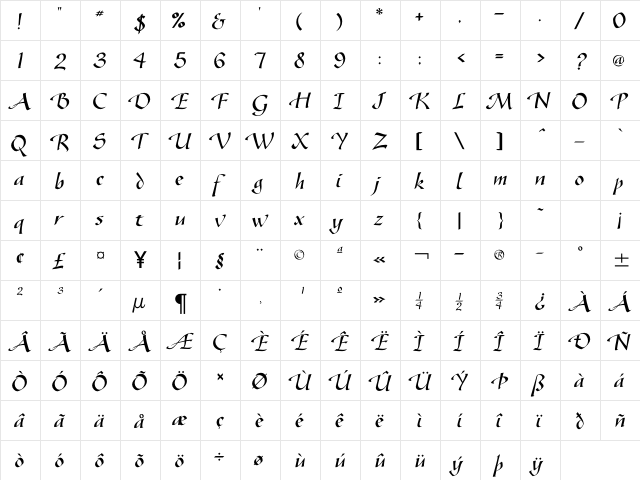
Gaze Normal
| Foundry | Francis Lestingi for Letterhead Fonts |
Design Context for Gaze Typeface
Gaze takes a measured approach to typography — its balanced proportions and neutral character make it a reliable workhorse for both digital and print work.